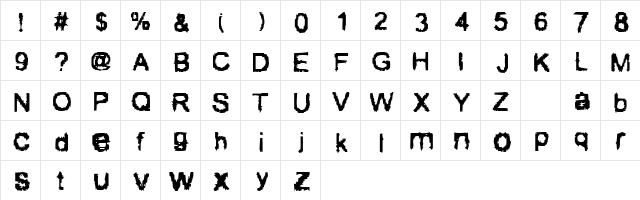
Downer Regular
Design Context for Downer Typeface
Downer is a composed and adaptable typeface that performs quietly and consistently across a wide range of design contexts.